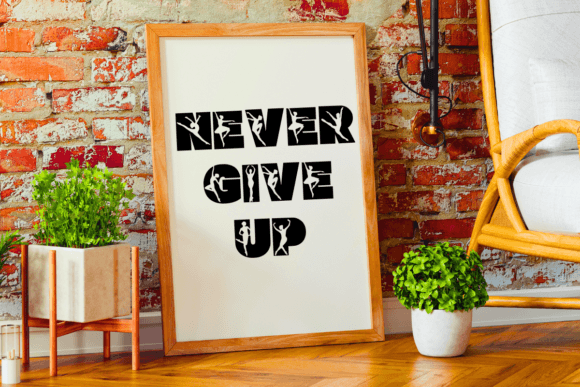
Dance Font
Feel the rhythm come alive with our ‘Dance’ font! Each letter is like a stage, hosting graceful ballet silhouettes. It’s a beautiful blend of movement and style, perfect for adding flair to any project!